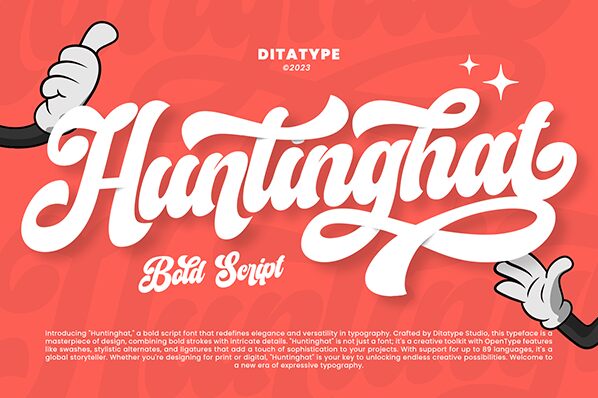
Huntinghat font by Ditatype is a bold retro brush typeface overflowing with nostalgic charm. Combining confident strokes and an elegant presence, this sophisticated typeface effortlessly connects with readers in various projects. Hand-brushed effects in each glyph give it a human feel elevating its expressive nature.
This flowing free calligraphy font is for comics, toy packaging, drink branding & labels, wedding invitation cards, merchandise design, website design and more. Its elegance will look impressive also on t-shirts & apparel prints, magazines covers & articles typography, movie titles and more.